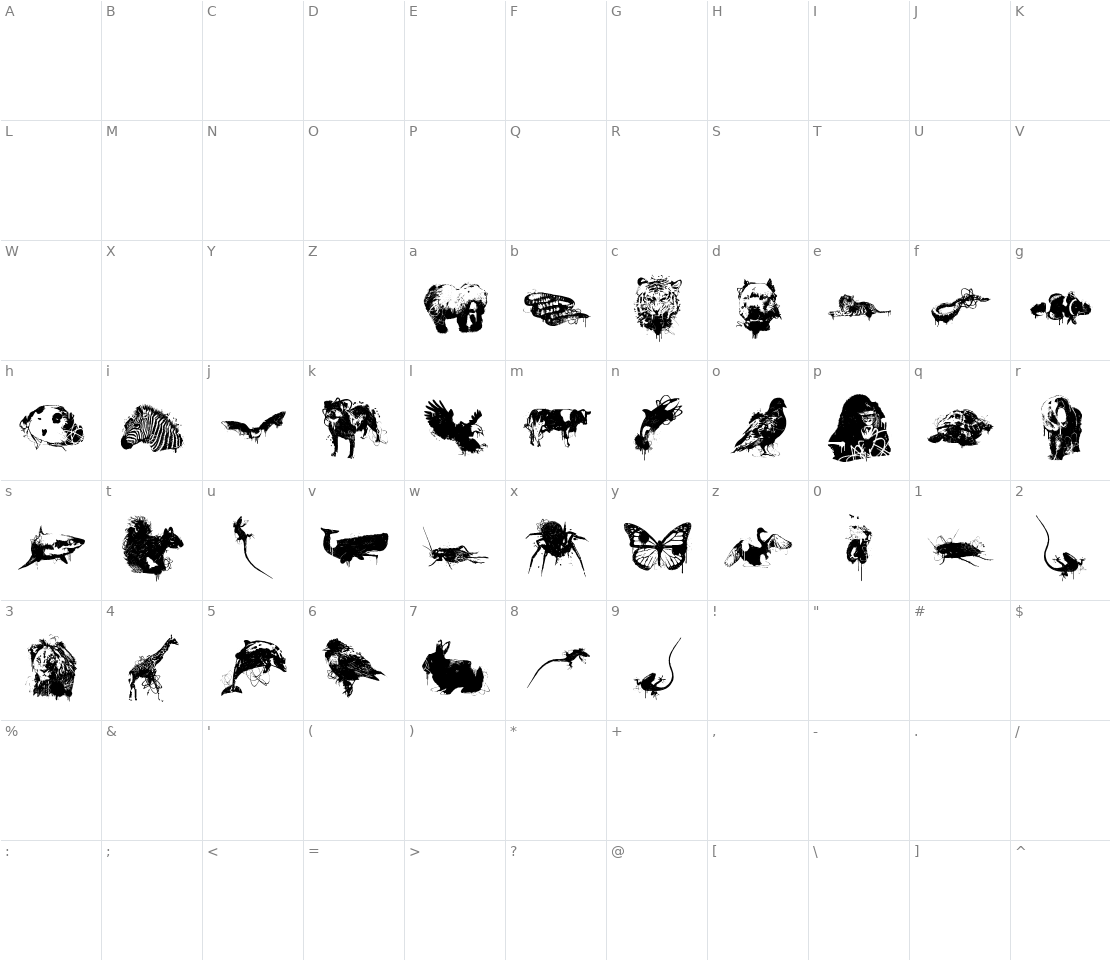
World Beings
World Beings is a decorative dingbat font from Xerographer Fonts where each character maps to a black silhouette of an animal or wildlife figure. The illustrations lean realistic rather than cartoonish, with solid filled shapes that read clearly at a range of sizes. Useful for nature-themed layouts, educational materials, or anywhere you need quick, clean animal icons without reaching for a separate illustration file.